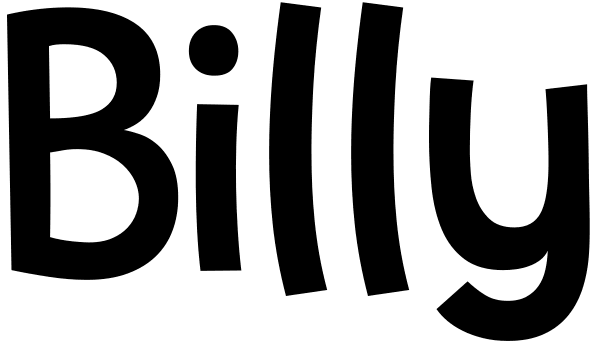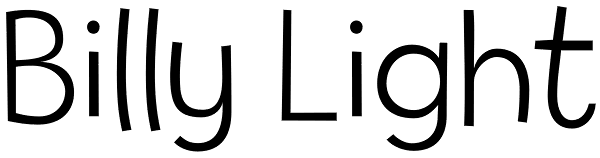
Billy
Billy Bold is a playful sans serif font with a whimsical, childlike charm. Its chunky letterforms feature varying angles and subtle irregularities that create a hand-crafted feel. Perfect for children's materials, casual branding, and designs requiring a friendly, approachable personality. Created by David Buck.